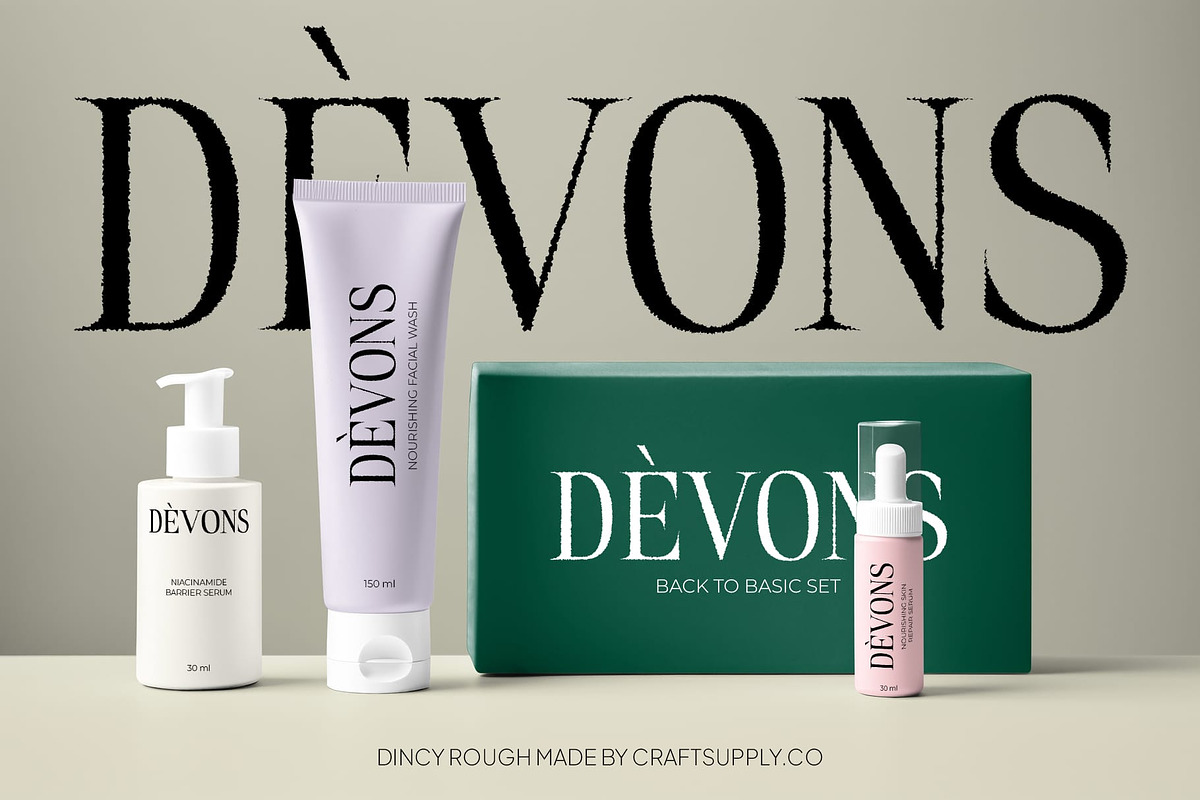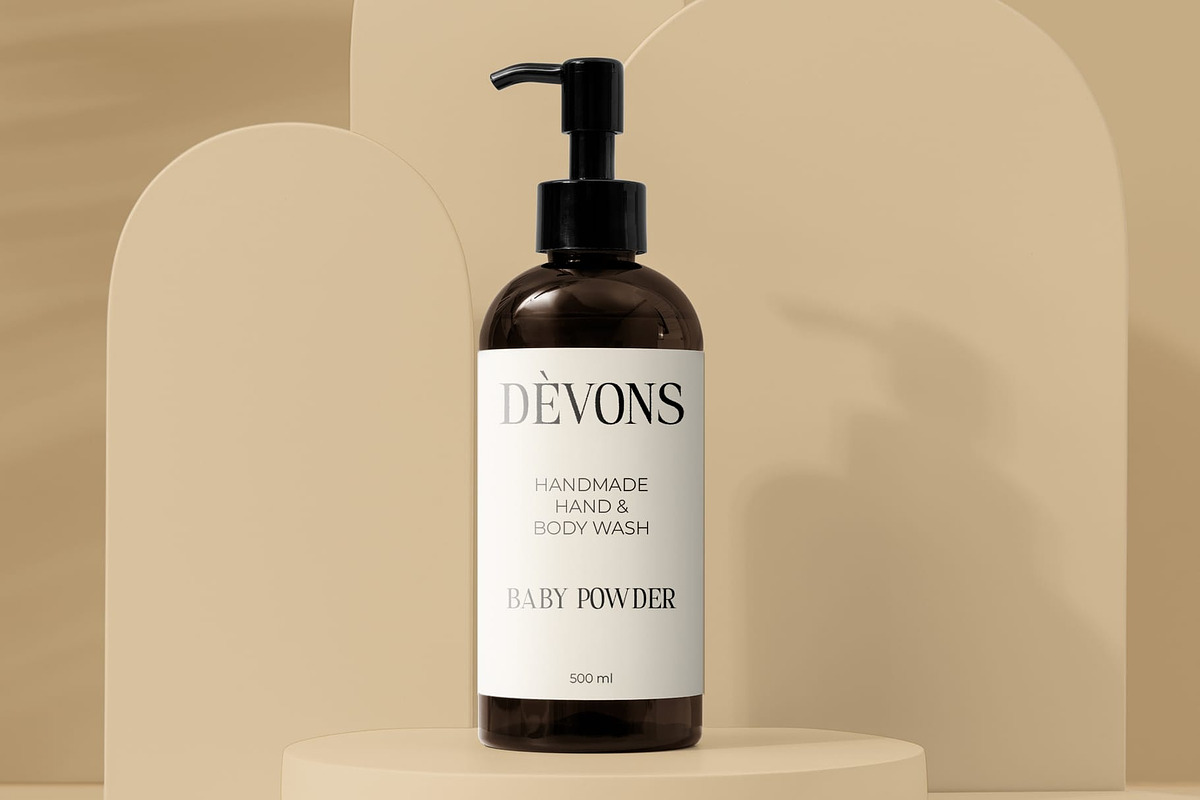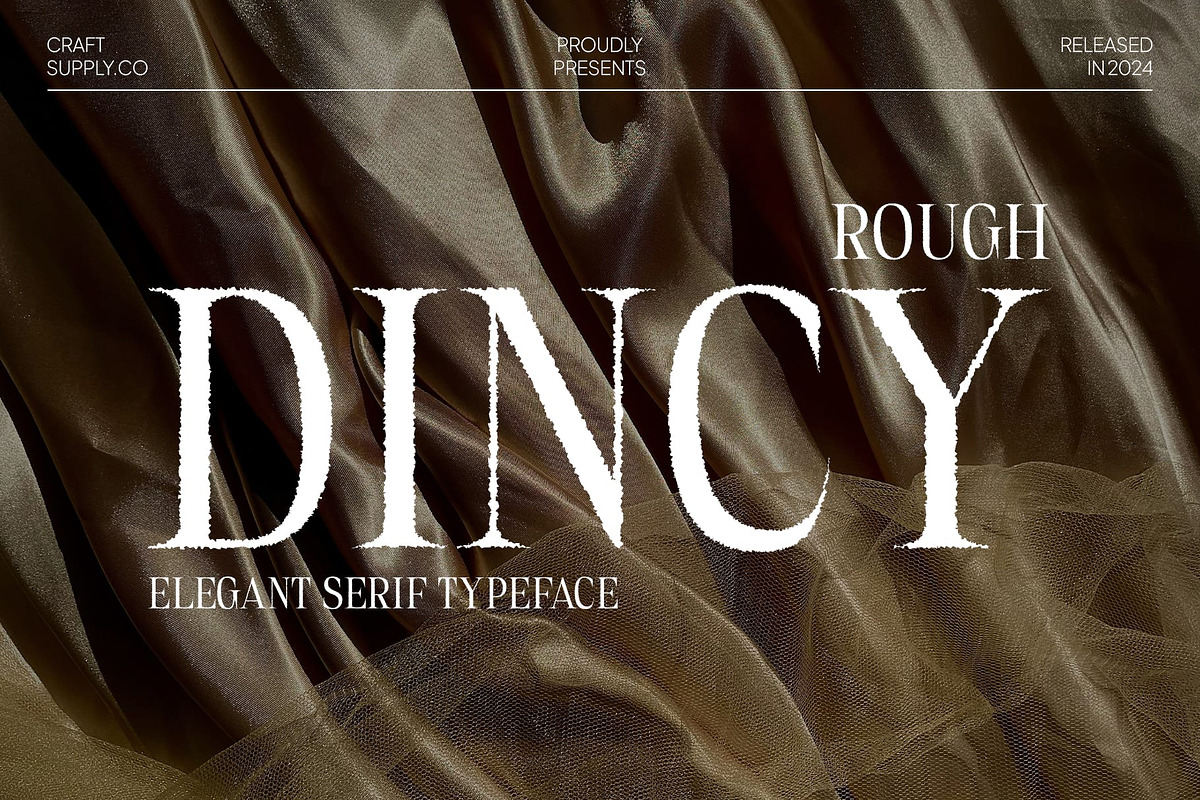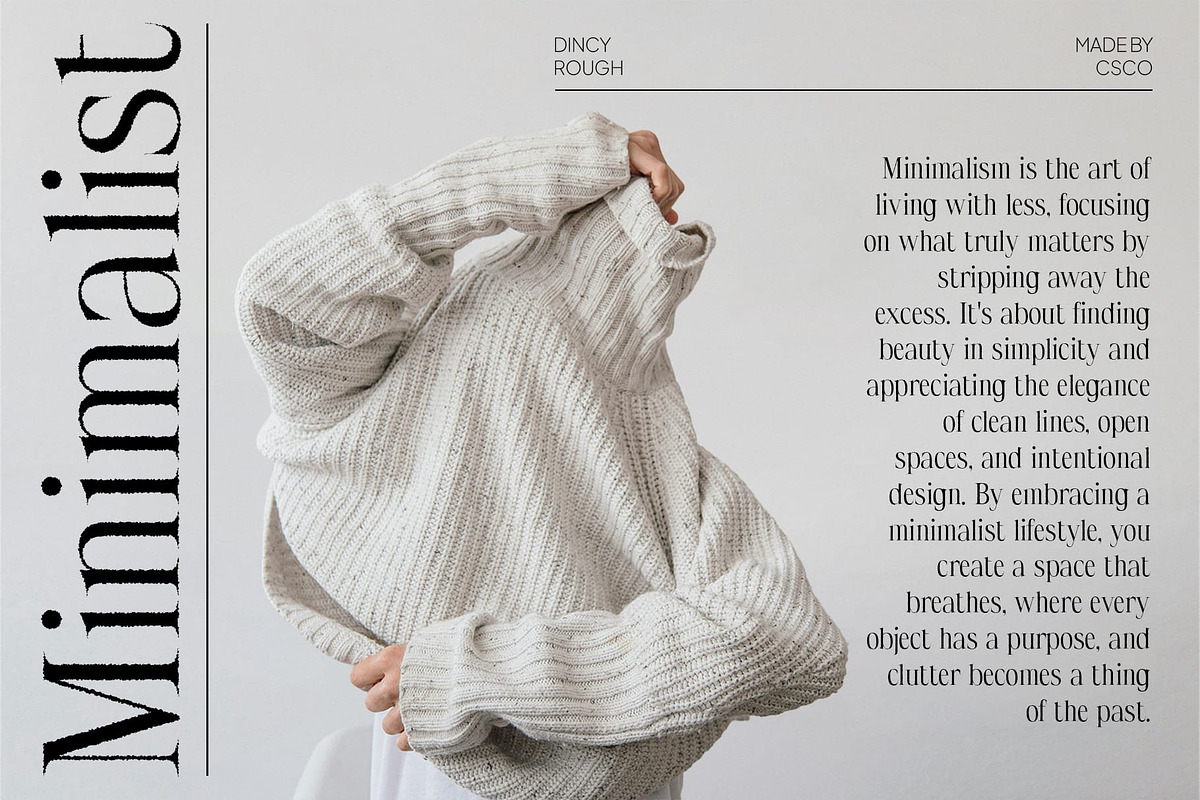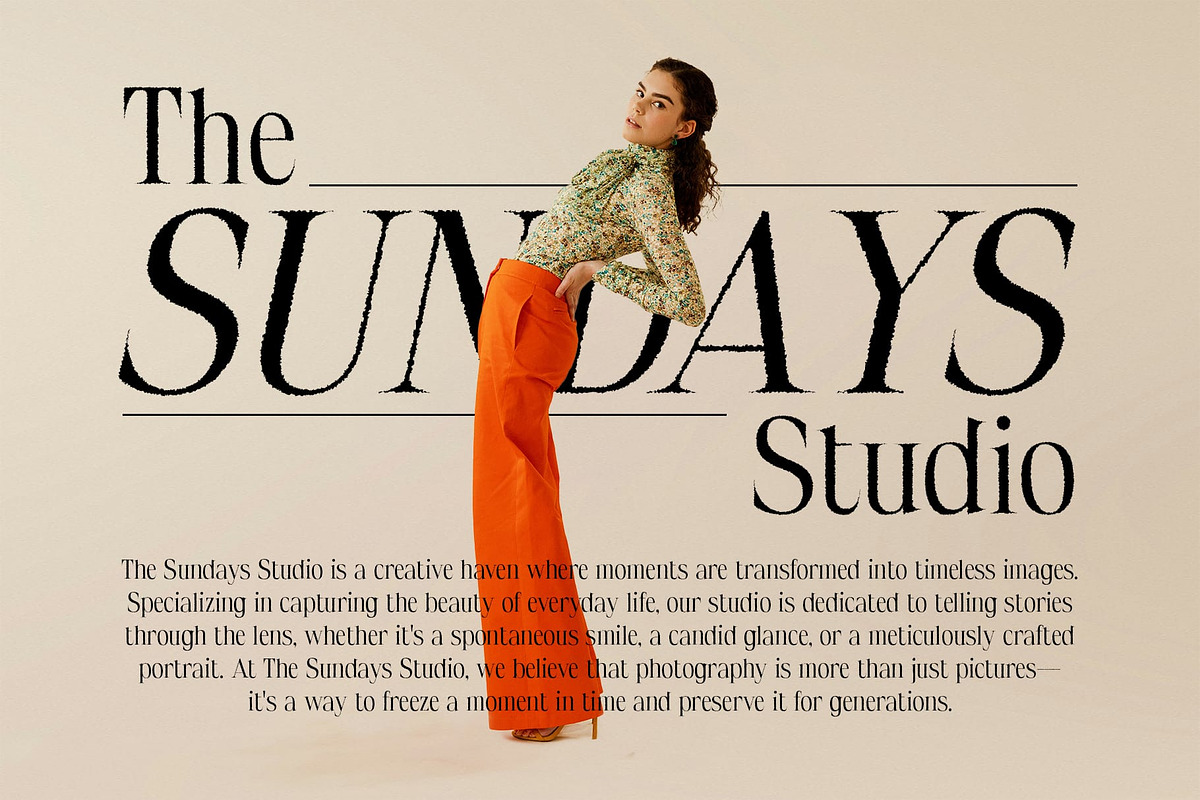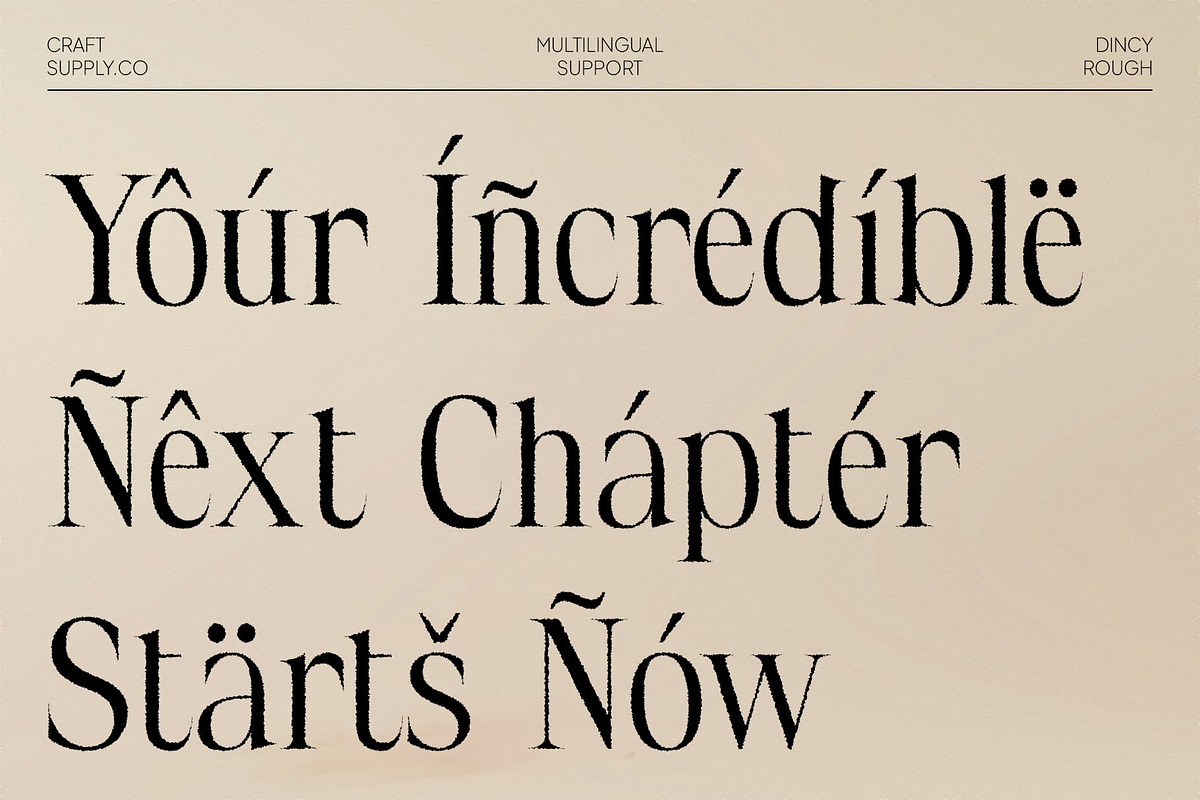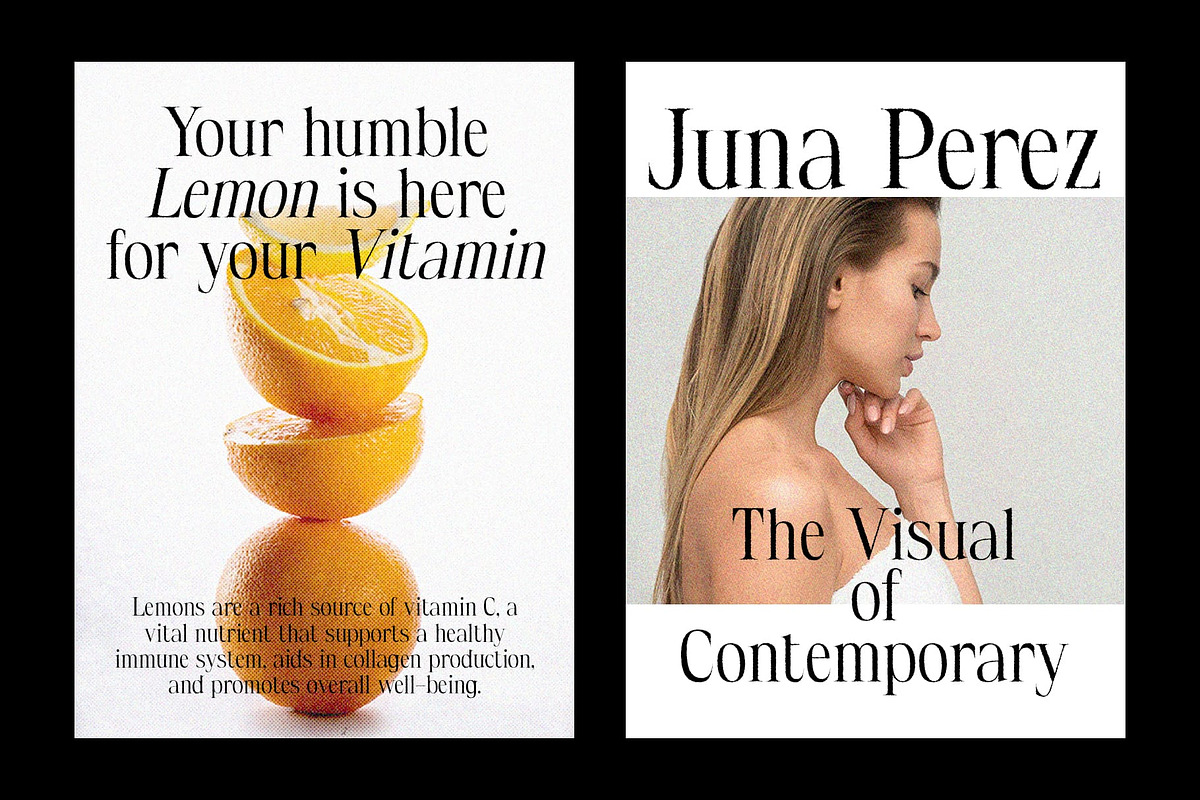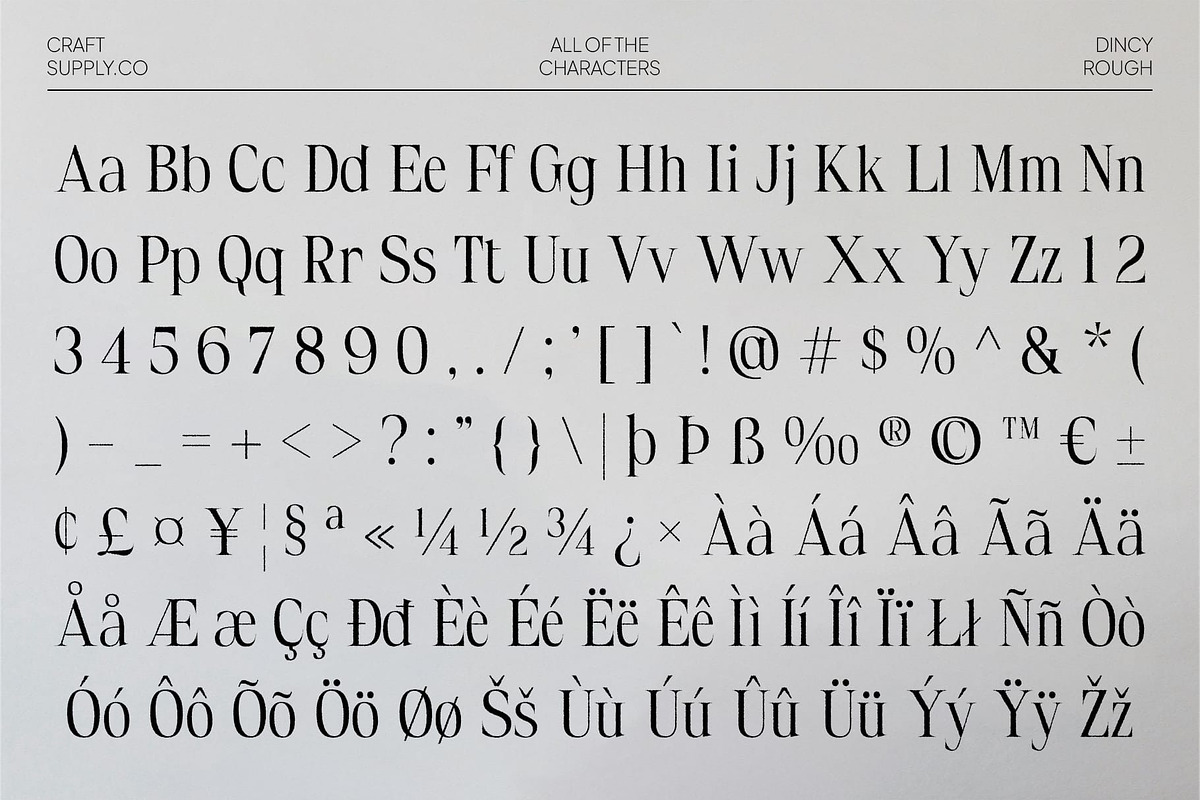
Dincy Rough
Dincy Rough Font: Refined Elegance with a Subtle Edge
Modern Serif with Slim, Clean Lines Dincy Rough is a modern serif font featuring slim, clean lines that exude elegance and sophistication. Its minimalist design provides a sleek and polished look, making it ideal for high-end branding and stylish editorial layouts.
Distinctive Rough Texture The rough texture adds a subtle, sophisticated edge to the font, introducing a unique detail that enhances its visual appeal. This combination of refinement and texture creates a distinctive look that sets it apart from more traditional serif fonts.
Perfect for Branding and Creative Projects Dincy Rough is perfect for branding, editorial work, and creative projects that require a refined yet distinct aesthetic. Its blend of modern elegance and textured detail makes it versatile and suitable for a wide range of sophisticated design applications.
Elevate Your Design Bring a touch of elegance with a subtle edge to your projects with Dincy Rough. Its sleek lines and unique texture offer a perfect balance of sophistication and individuality, making it an excellent choice for contemporary and creative designs.